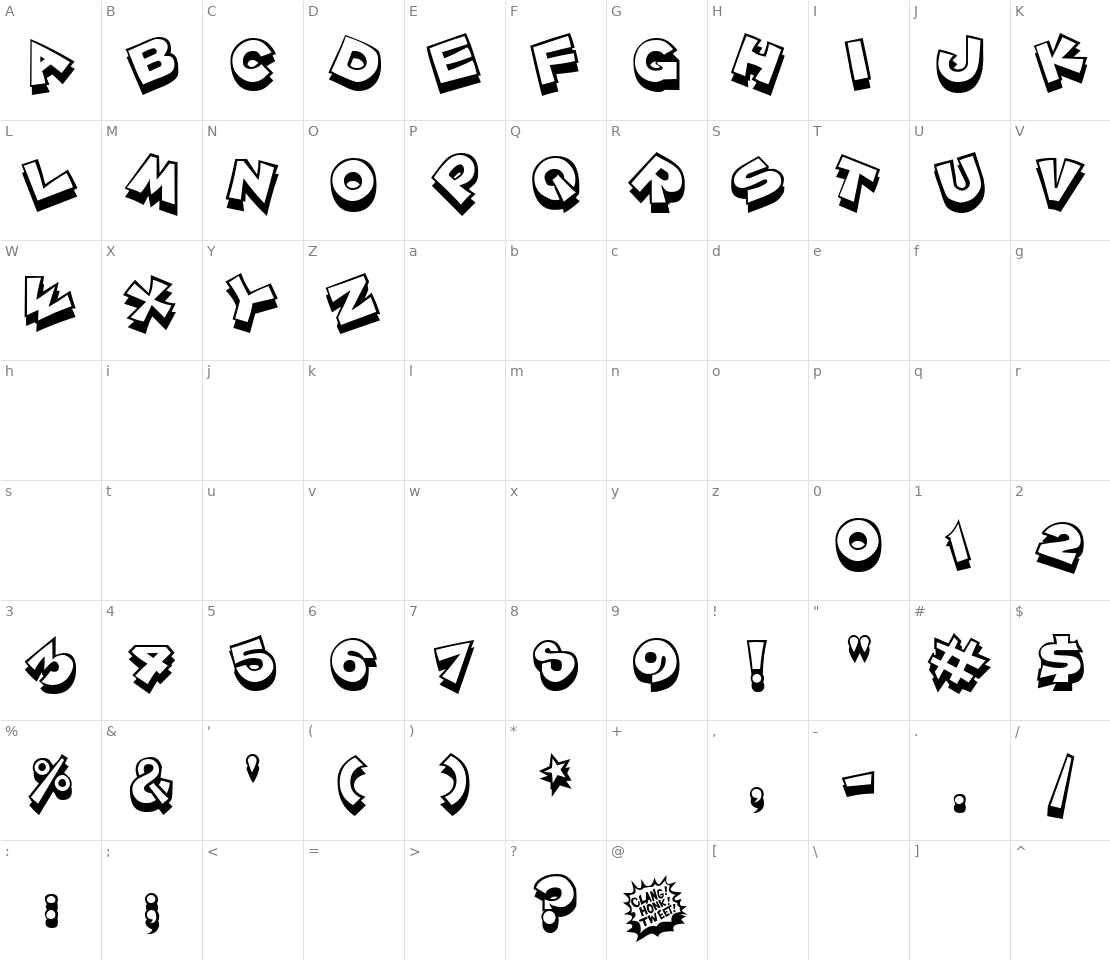
Zoink
Zoink is a bold, bouncy comic typeface from Marty Yawnick with a 3D effect that makes each letter pop off the page. The thick, playful letterforms have that classic cartoon energy, right at home on comic book covers, posters, and kids' media where subtlety takes a back seat to sheer fun. It's a display face through and through, built to grab attention at large sizes.